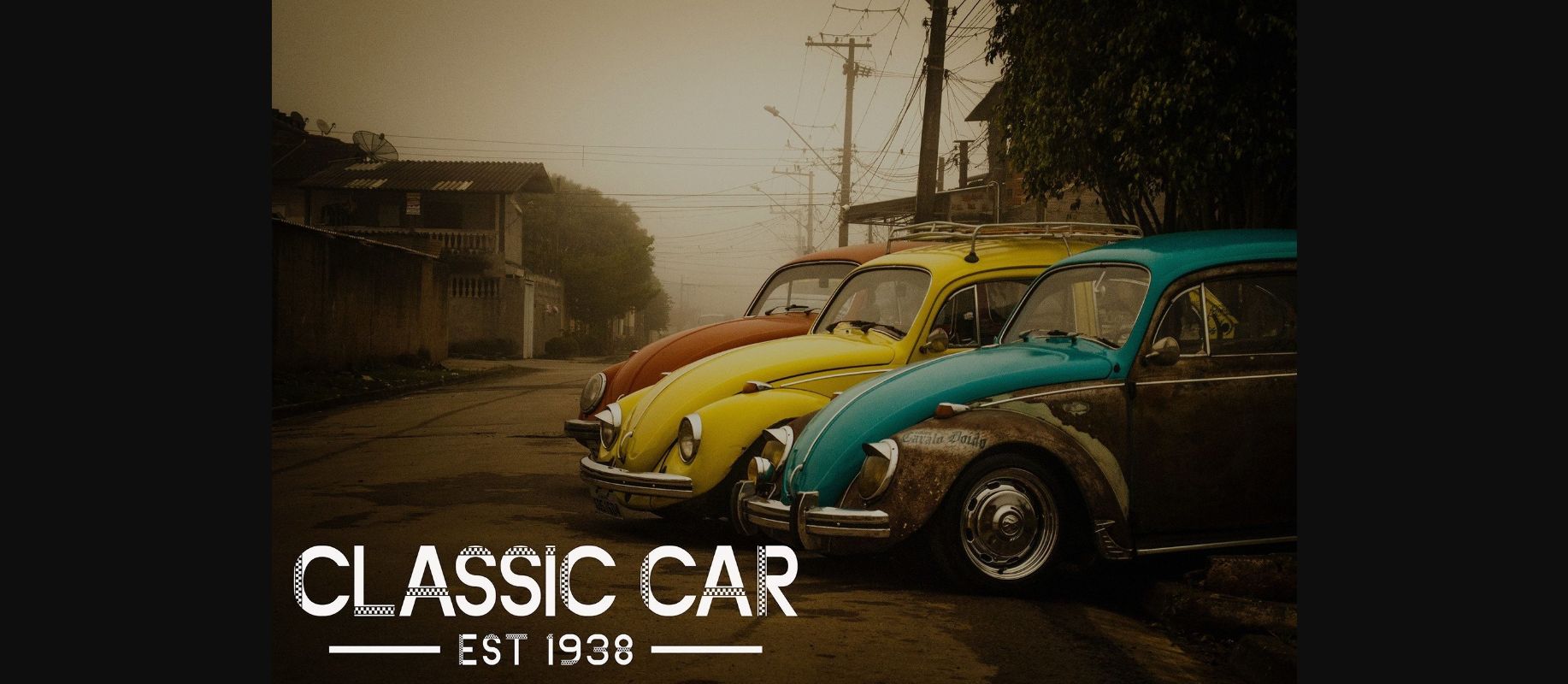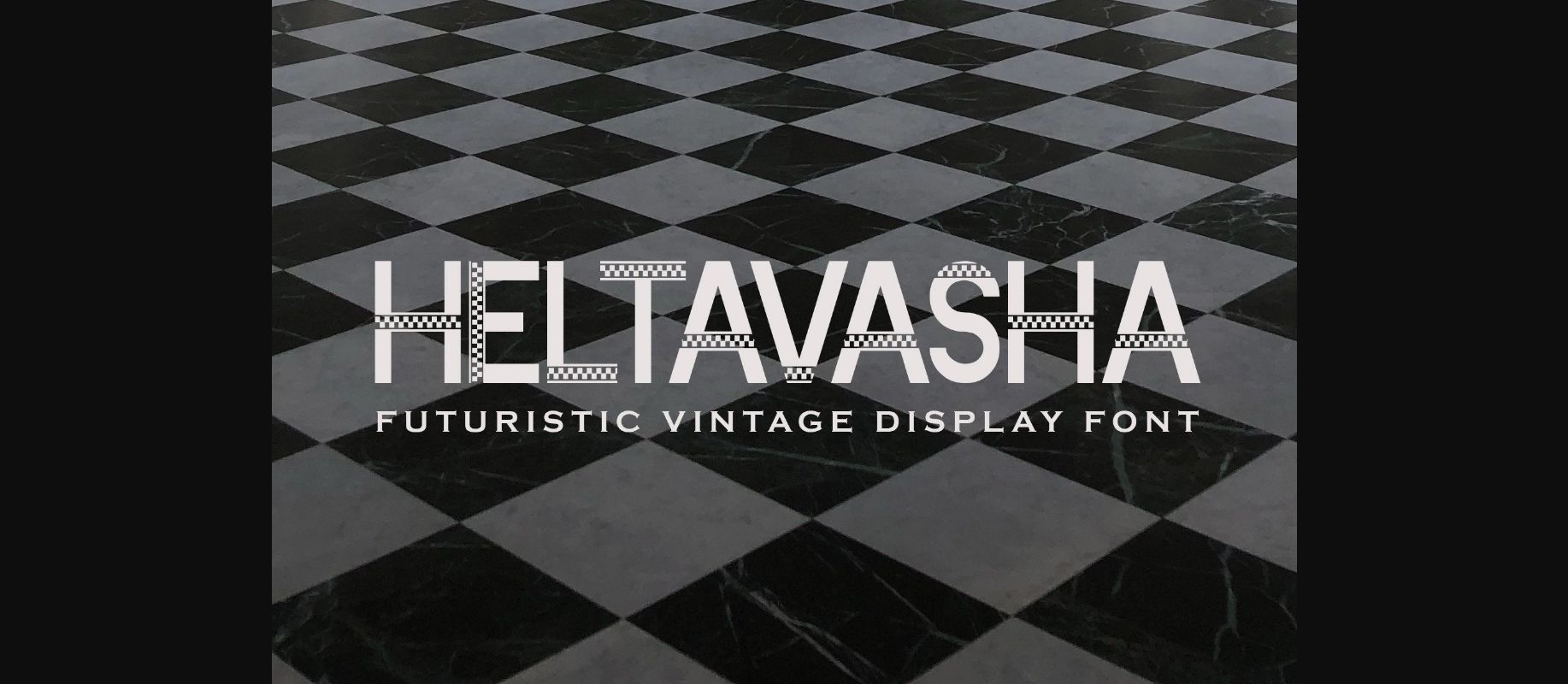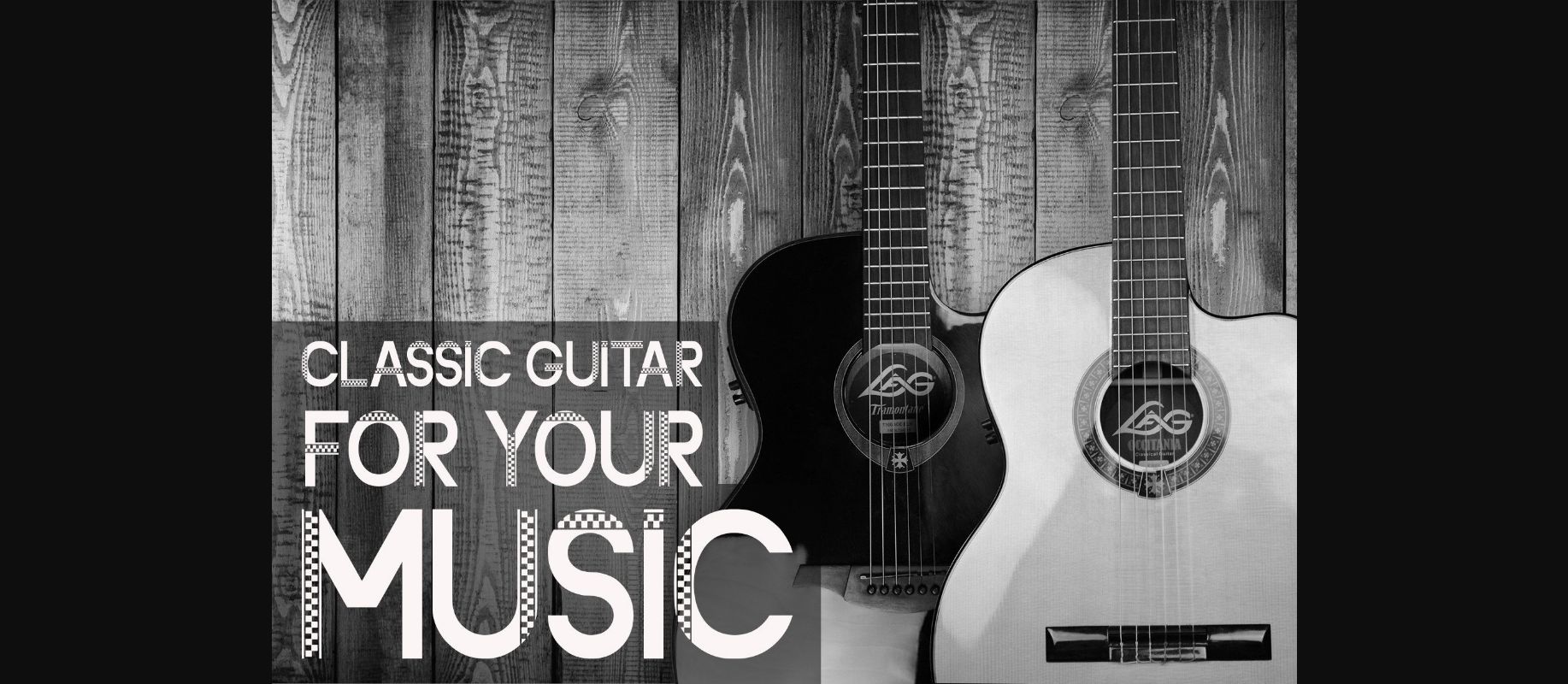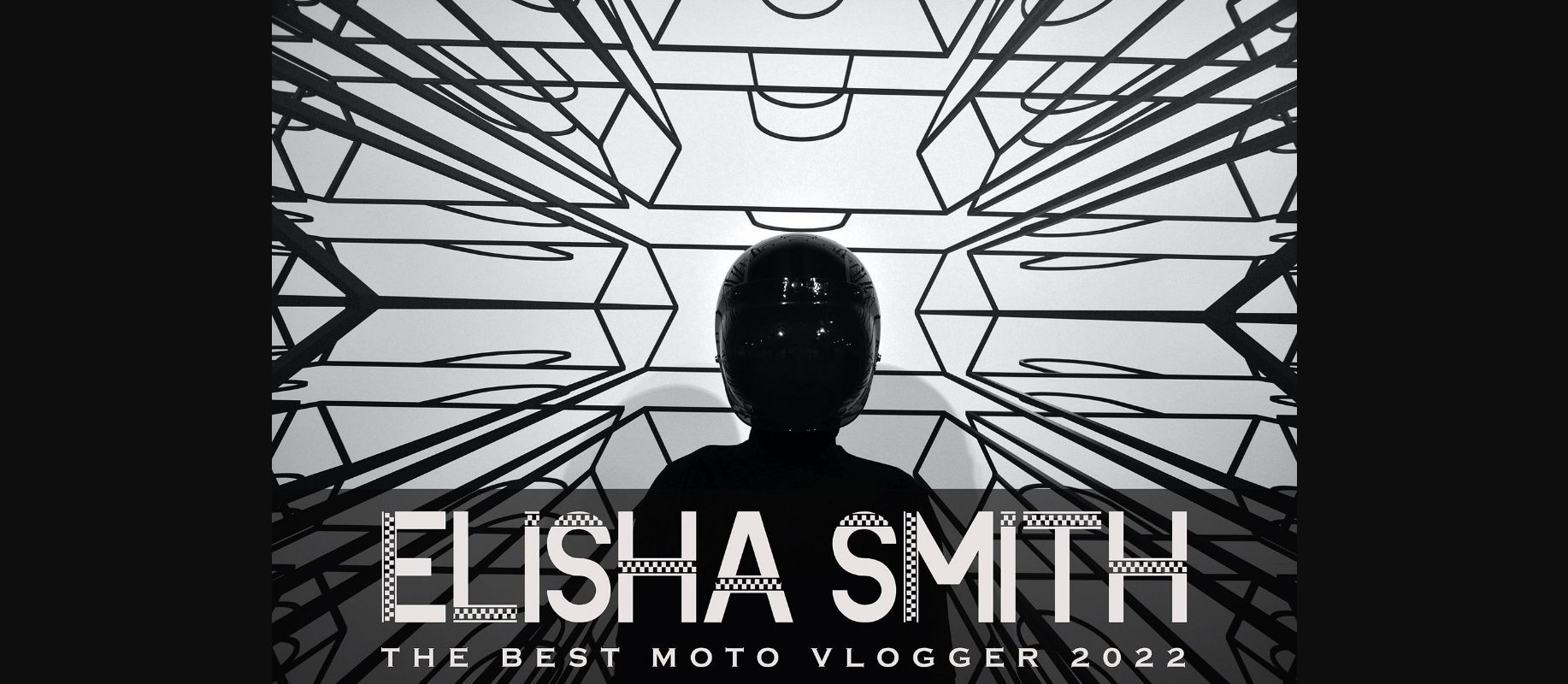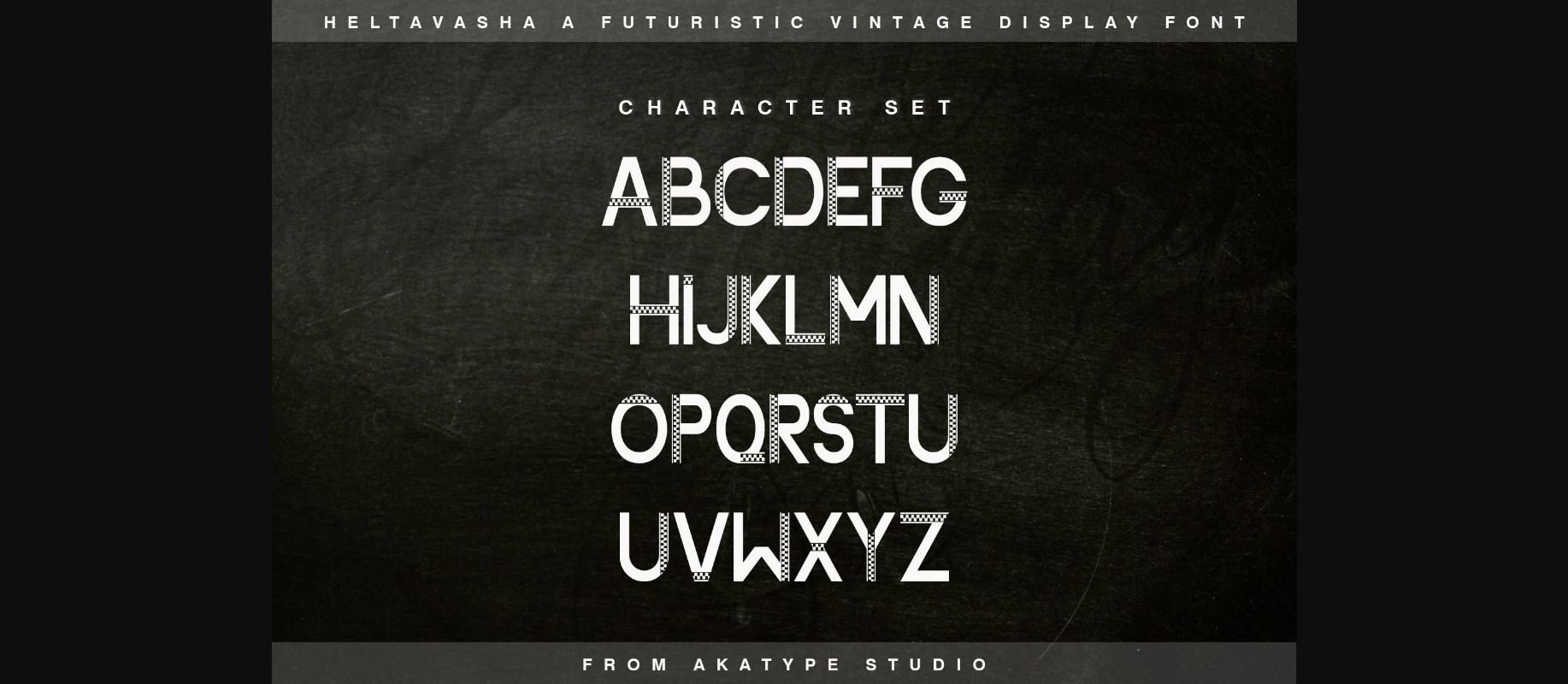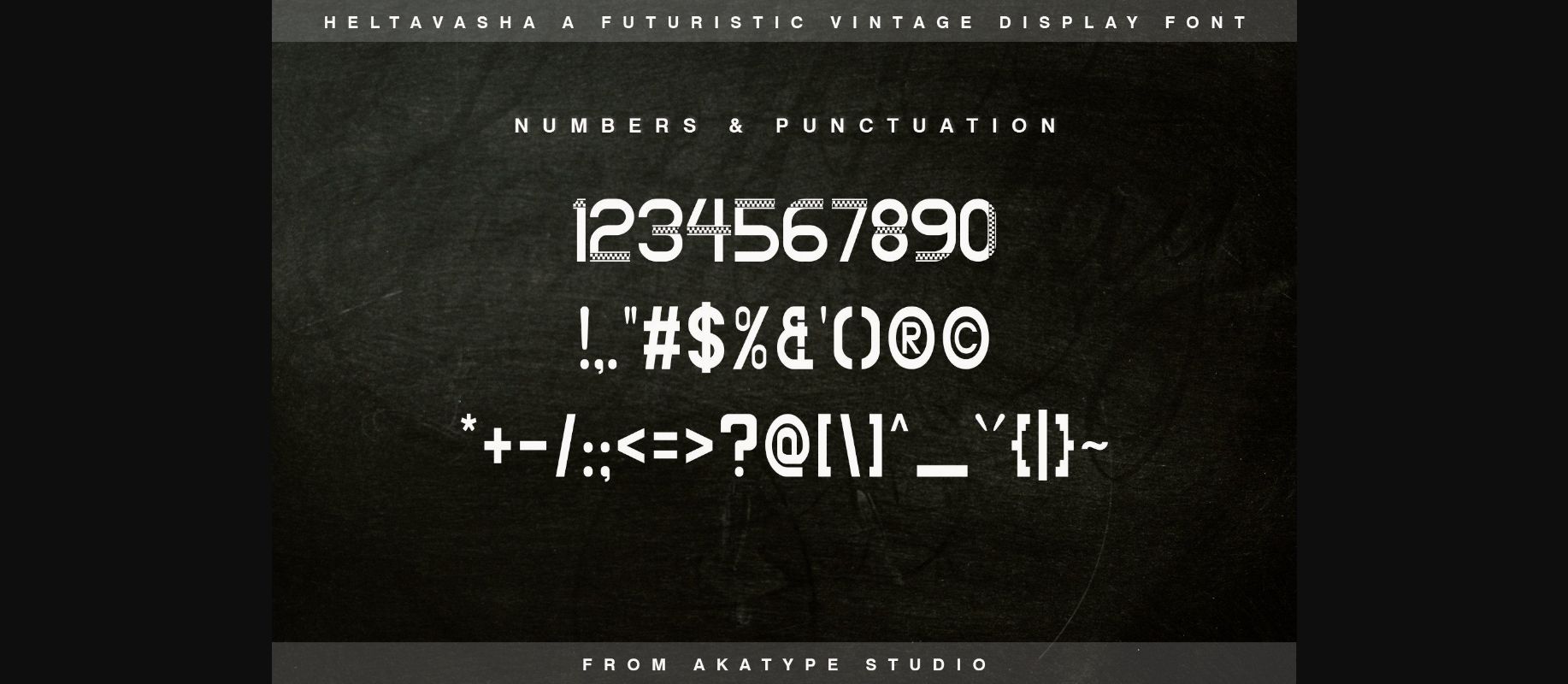
About Heltavasha Font
Heltavasha is a futuristic vintage decorative font that embodies uniqueness for chess patterns. This font is also suitable for logos and other formal forms such as invitations, labels, logos, magazines, books, greeting/wedding cards, packaging, fashion, make-up, stationery, novels, labels, or any type of advertising purpose.